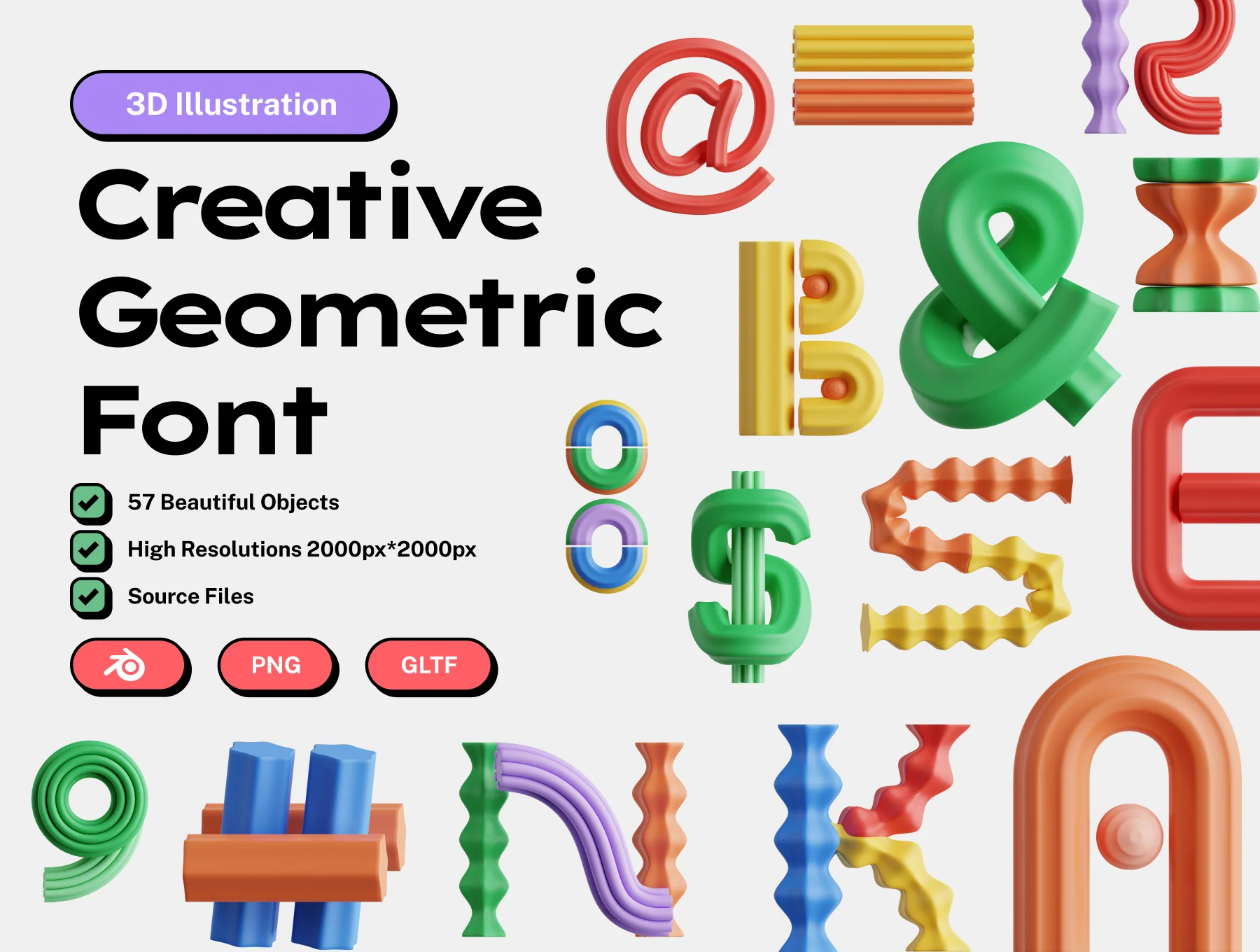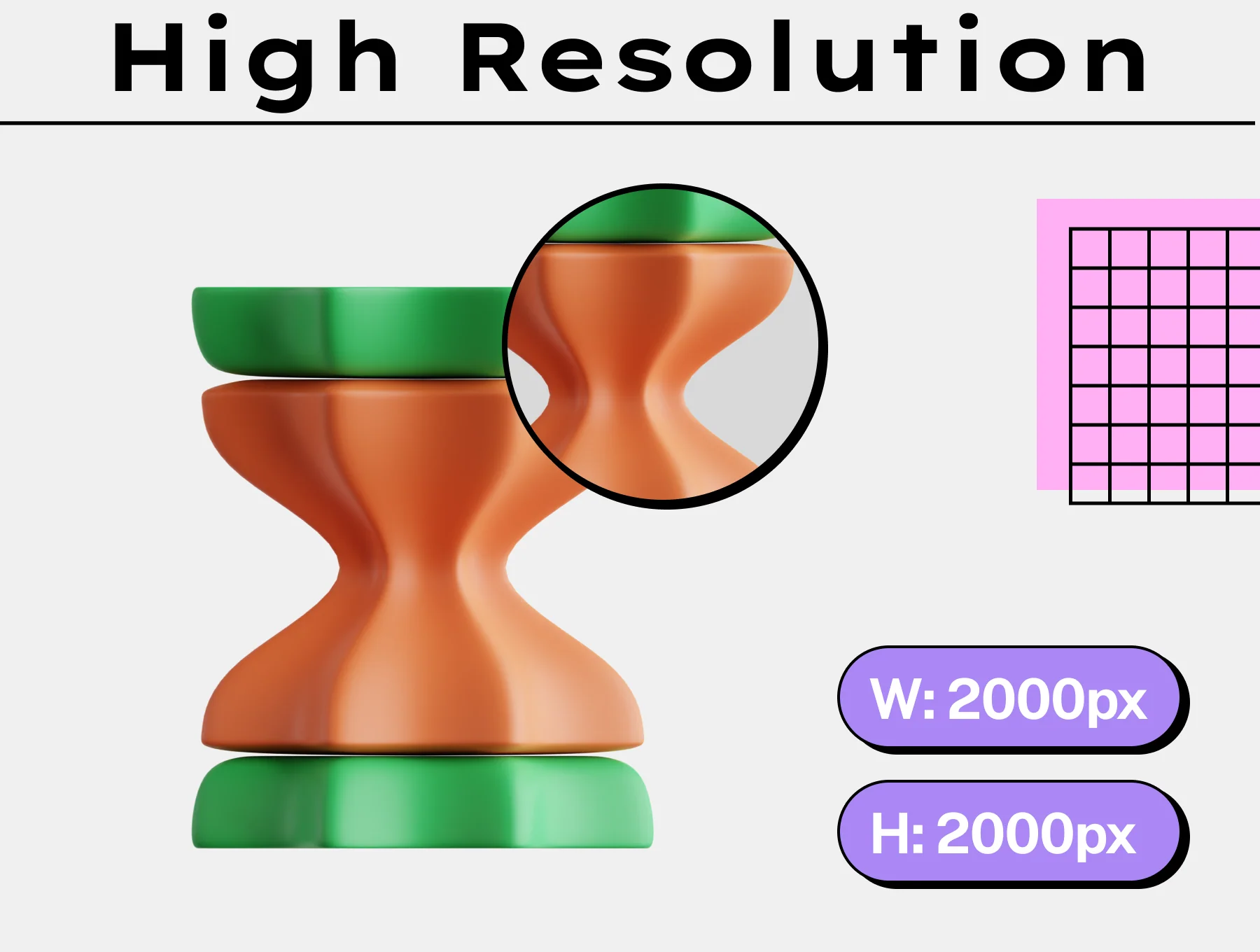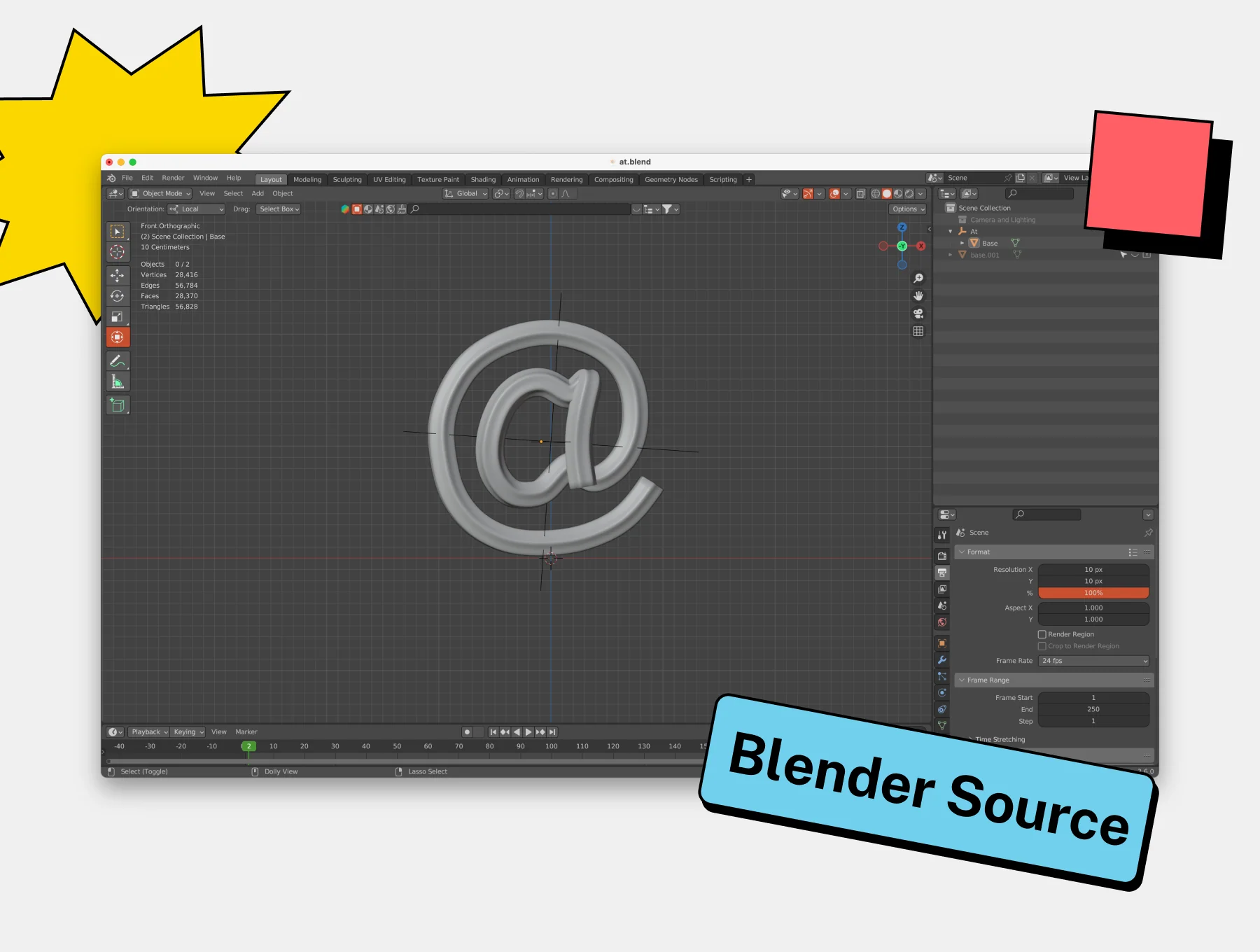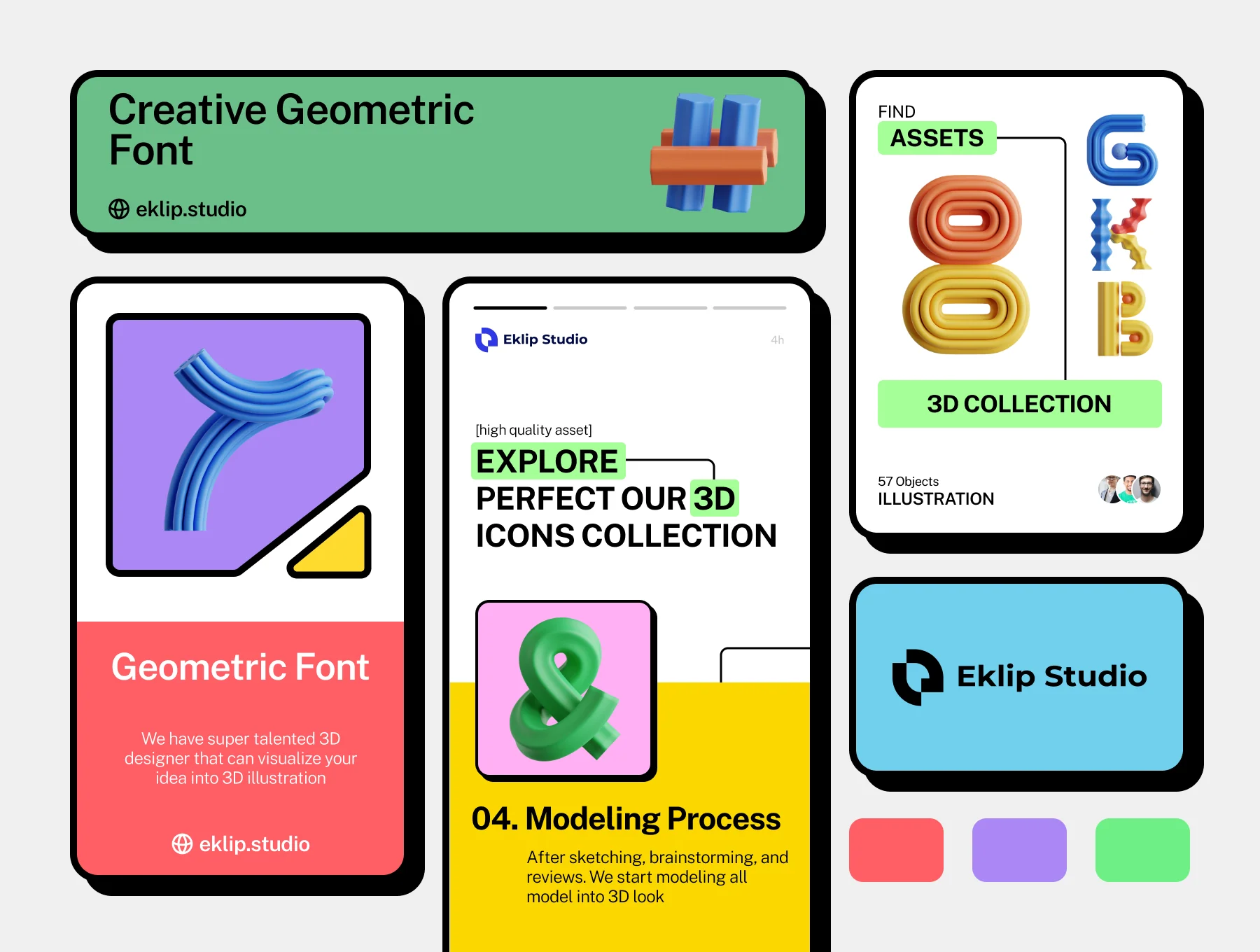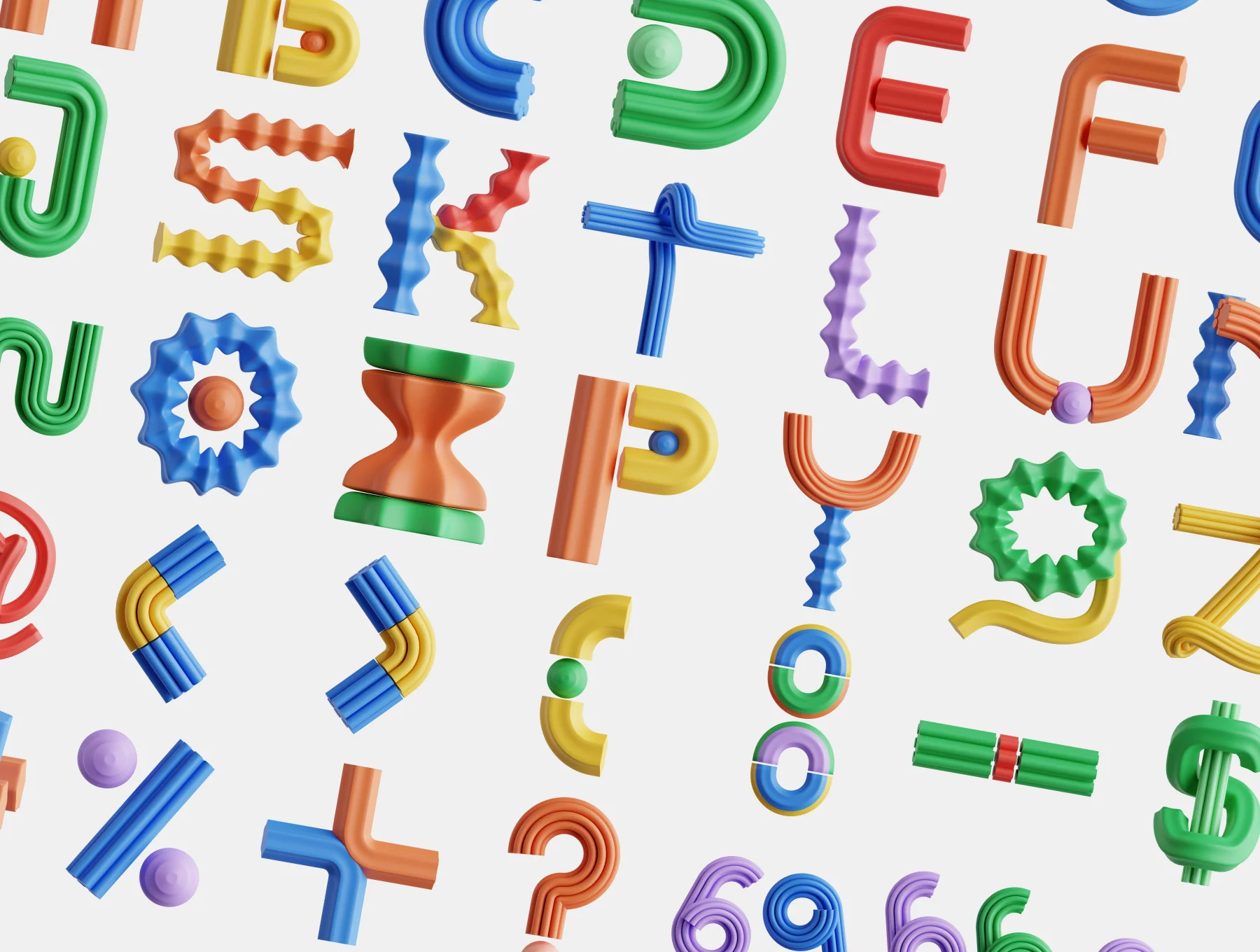
Creative Geometric Font 3D Icon Set
Artistic 3D Geometric Typeface Icon Pack
57 stunning three-dimensional icons
Creative Geometric Font 3D Icon Pack
Enhance app interfaces, UI/UX layouts, and website designs with a distinctive set of geometric 3D font icons.